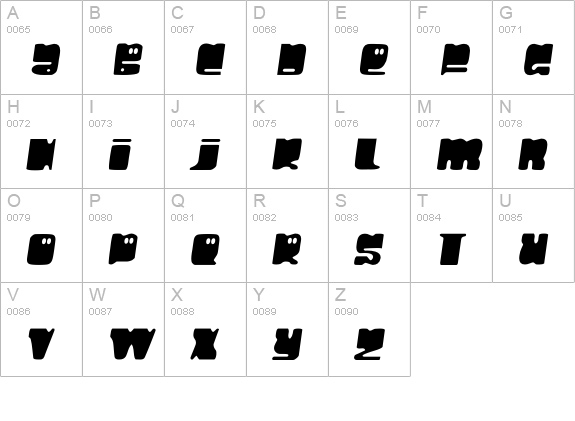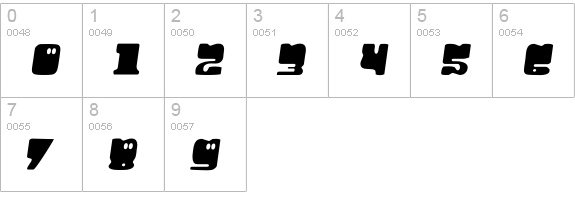
HelloLarry is a modern and stylish font that is sure to catch your eye. With its clean lines and bold design, this font is perfect for creating eye-catching headlines, logos, and posters. Its sleek and contemporary look will add a touch of sophistication to any project. But what sets HelloLarry apart from other fonts is that it is completely free! That's right, you can download and use HelloLarry for absolutely no cost. Whether you're a professional designer or just someone looking to add a bit of flair to your personal projects, HelloLarry is the perfect font for you. And the best part is, HelloLarry is freely available to download at FontsMarket.com. FontsMarket.com is a trusted source for high-quality fonts, and they are proud to offer HelloLarry as a free download. So why wait? Head over to FontsMarket.com and start adding some style to your designs with HelloLarry. Don't miss out on this amazing opportunity to get a top-notch font for free.